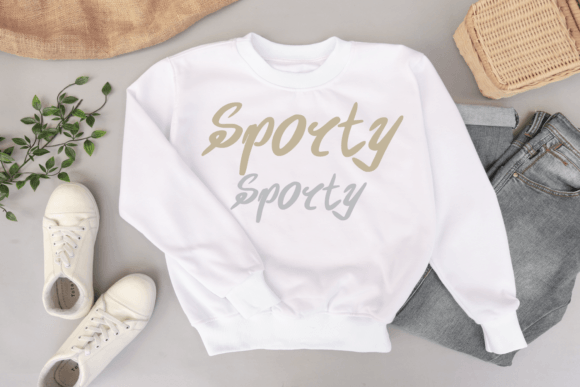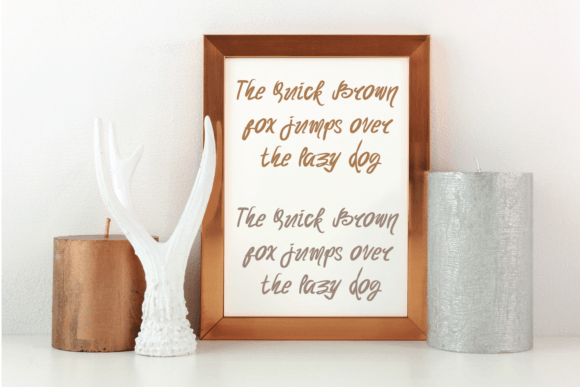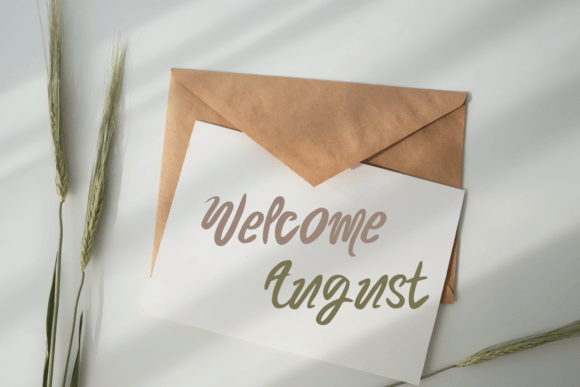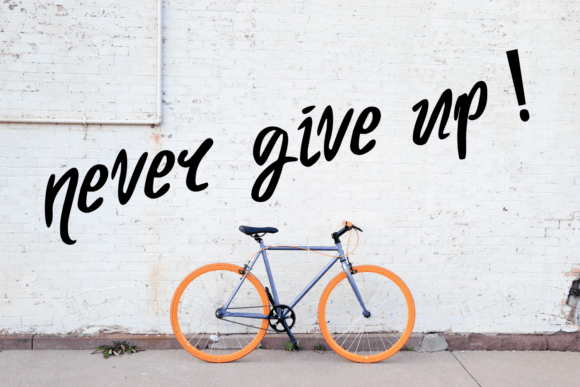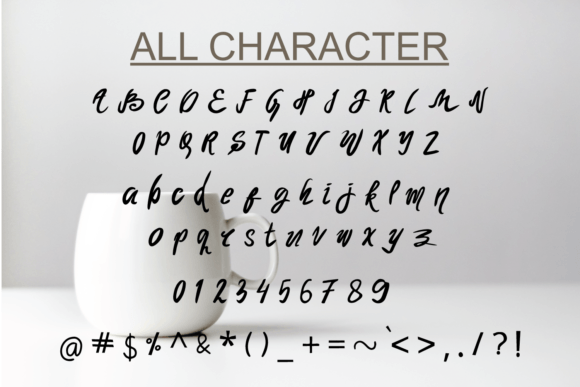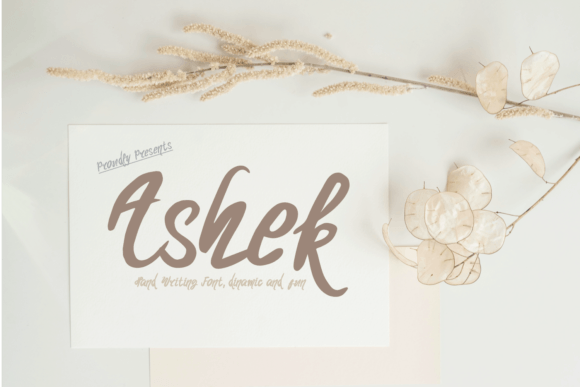
The Magic of Ashek Font: Elevate Your Designs with Elegance and Flair
I’ll never forget the time I was working on a wedding invitation project, and my client asked for a font that was both elegant and playful. I scoured the internet, tried out countless fonts, but nothing seemed quite right. That was until I stumbled upon Ashek Font. Its unique blend of cursive and script styles instantly captured the essence of what my client was looking for. In this article, I’ll share with you why Ashek Font has become a staple in my design toolkit and how you can make the most of it in your own projects.
An Honest Review of Ashek Font
What I Love About Ashek Font
- ✨ Unique and eye-catching design: Ashek Font’s dynamic and slightly twisting shape makes it perfect for adding a touch of personality to any design.
- ✅ Versatile: Whether you’re working on wedding invitations, birthday invitations, boutique displays, or fashion projects, Ashek Font adapts seamlessly.
- 💫 Elegant yet playful: This font strikes the perfect balance between sophistication and whimsy, making it ideal for a wide range of creative projects.
While Ashek Font is incredibly versatile, there are a few things to keep in mind:
- ⚠️ Legibility at small sizes: Like many script fonts, Ashek can be a bit tricky to read at very small sizes. It’s best used at larger sizes where its unique characteristics can shine.
- 🤔 Pairing with other fonts: Due to its distinctive style, you’ll want to choose complementary fonts carefully to ensure your design doesn’t become too busy or overwhelming.
The Story Behind Ashek Font
Ashek Font was designed with the intention of capturing the fluidity and elegance of handwritten scripts while maintaining clarity and readability. Its creator aimed to produce a font that could be both versatile and distinctive, suitable for a variety of creative applications. The name “Ashek” reflects a sense of love and affection, embodying the warmth and personality that the font brings to designs.
Q: Is Ashek Font suitable for body text?
A: While Ashek Font is beautiful, it’s primarily designed for display purposes. Its unique style may not be ideal for long body text due to readability concerns.
Q: Does Ashek Font support OpenType features?
A: Yes, Ashek Font comes with a range of OpenType features, including stylistic alternates and glyphs, allowing for a high degree of customization.